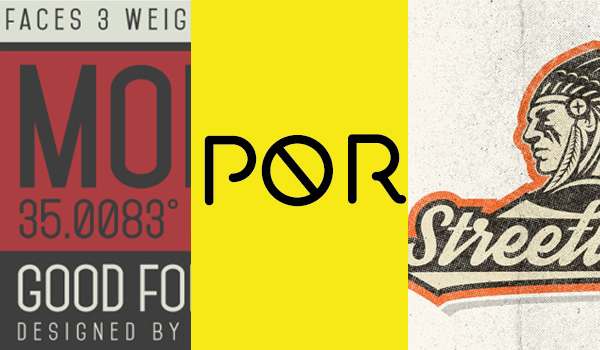
10 Fresh Free Fonts For Graphic Designers
Fresh free fonts are always in demand by typographers and graphic designers. And the good news is that new free fonts are released every week by generous typographers and font designers.
Here we have collected 10 new free fonts for use in your web and graphic design works as well as for design inspiration. The list contains assorted fonts in script, thin, bold and rounded styles.
Streetwear (Free Font)
Blenda Script - Free Font
Barn Free Font
CHASE (Free Font)
Accent™ (Free) Display Typeface
ADAM - Free Typeface
SIMPLIFICA Typeface | Free
Porto Free Font
Mohave Free Font
QG Free Font